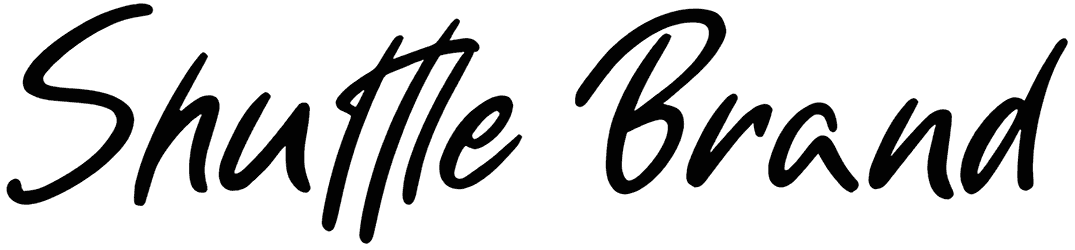
Shuttle Brand Font
Inspired by personal and organic characters, the Shuttle Brand shape is an excellent choice for quotes, friendly letters, and website banners. This handwritten font has smooth and continuous joints that portray an artistic and modern effect, while it takes work to read.
For this reason, it keeps the viewer focused on your designs for a while and can create a bright spot in your design resume.